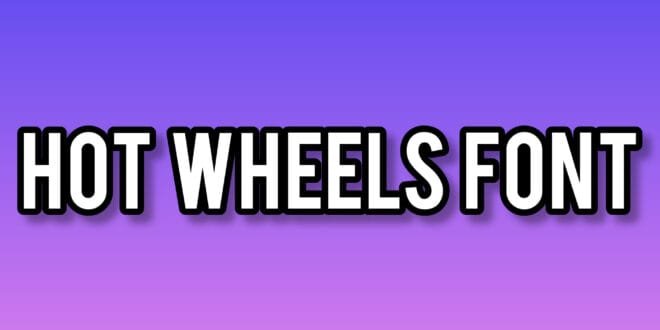
The Hot Wheels Font, crafted by Mattel’s design team, takes inspiration from the iconic Hot Wheels logo. This bold, dynamic, and energetic typeface captures the thrill of racing, making it perfect for big, eye-catching headlines and logos. As a Display Font, it stands out with its striking style. Available in both TTF and OTF formats, it’s free for personal use, so feel free to use it wherever you like.
What is the Hot Wheels Font?
This unique font was designed in 1968. It reflects the nature of Hot Wheels toy cars. This is known mainly for its bold, dynamic, and speedy structure.
It was previously used for marketing and branding of Hot Wheels products including advertisements and other promotional materials.
| Name | Hot Wheels Font |
| Designer | Mattel Team |
| Type | Display |
Uses of Hot Wheels Font in Graphic Designing
Use in Canva
Canva users habitually search for this font to make aesthetic designs for their school and college projects. The creative use of this font in Canva allows for flexibility to grow your work. Using this font you can make your graphics and presentations more dynamic. Canva’s font library allows its users to easily access this font. Its use in Canva adds a professional touch to designs.
Use in Photoshop
Photoshop users also appreciate the dynamic look of this font. This font is used in Photoshop for designing favicon images and icons. This unique font can be easily used in Adobe Photoshop to enhance your productivity. Its flexibility allows it to be suitable in Photoshop for various projects.
Use in Cricut
Many crafters use this font to enhance their creations. This font is ideal in cricut for making custom decals and stickers. This font is popular with hobbyists for its distinctive look. Inducing this font for Cricut adds a professional touch to DIY projects.
Benefits of Using Hot Wheels Font
Hot Wheels Font Style
Many designers are impressed by the distinctive style of the font. Its style is perfect for dynamic and eye-catching designs. The style of this font is bold and energetic. Using this font style helps you make your brand more easily due to its addictive look and features. The unique style of the font sets it apart from all other fonts.
What is the Hot Wheels Font?
It is a bold typeface that is also used in the Hot Wheels logo which shows its importance and flexibility in designing major projects. It has a deep vibe that matches the fast and fun vibe of the toy cars.
What font does Hotwheel use?
Hot Wheel uses special letters that look like they are racing. It has a cool appearance and it is a font of cool and speedy letters.
Who designed the Hot Wheels logo?
It is designed by the design team at Mattel, the company which runs Hot Wheels. Specific humans are not usually credited, but the team at Mattel created this iconic logo and its font.